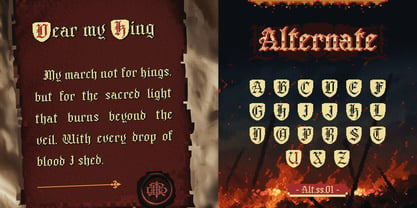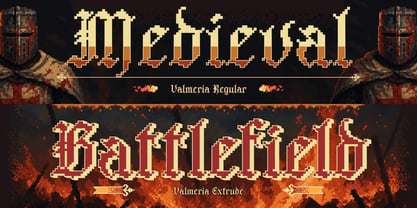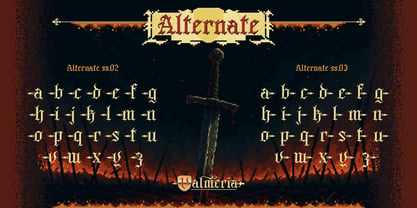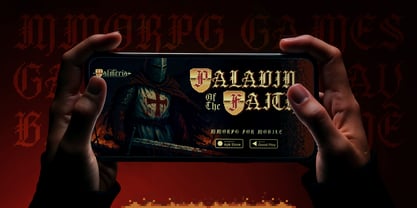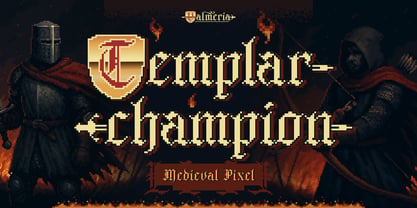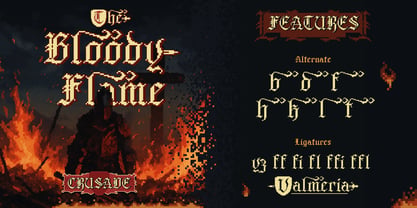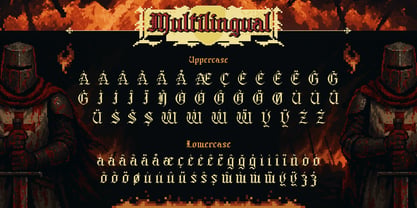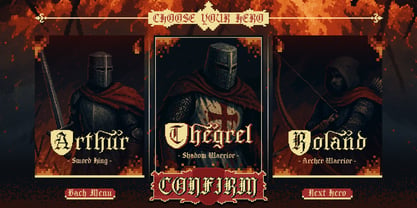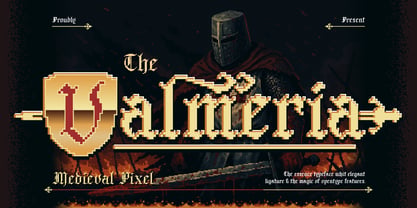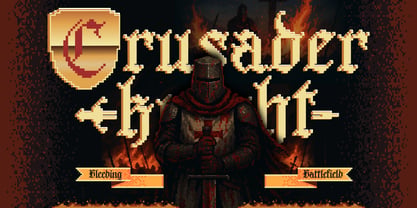
Valmeria
by Burntilldead
The Valmeria Font Family was designed by Eric Kurniawan and published by Burntilldead. Valmeria contains 2 styles and family package options. More about this family
Step into the pixel kingdom with Valmeria, a unique typeface that blends the bold spirit of medieval blackletter with the retro charm of pixel art.
This font is all about drama and sharp edges style, pixel perfect curves, and that old-school gothic vibe that feels straight out of a dark fantasy RPG. Whether you’re working on a pixel game, a vintage poster, or just wanna give your design some epic knight energy, Valmeria is here to rule.
Comes in Regular and Extrude styles, so you can keep it clean or go extra bold with a striking 3D look. Plus, it’s packed with uppercase, lowercase, numbers, and symbols—ready to bring your medieval pixel dreams to life.
If you’re into pixel art, gaming aesthetics, or just love fonts that stand out, Valmeria is the perfect weapon of choice.
Features:
• A - Z set (Uppercase & Lowercase)
• Number
• Punctuation
• Alternate
• Multilingual